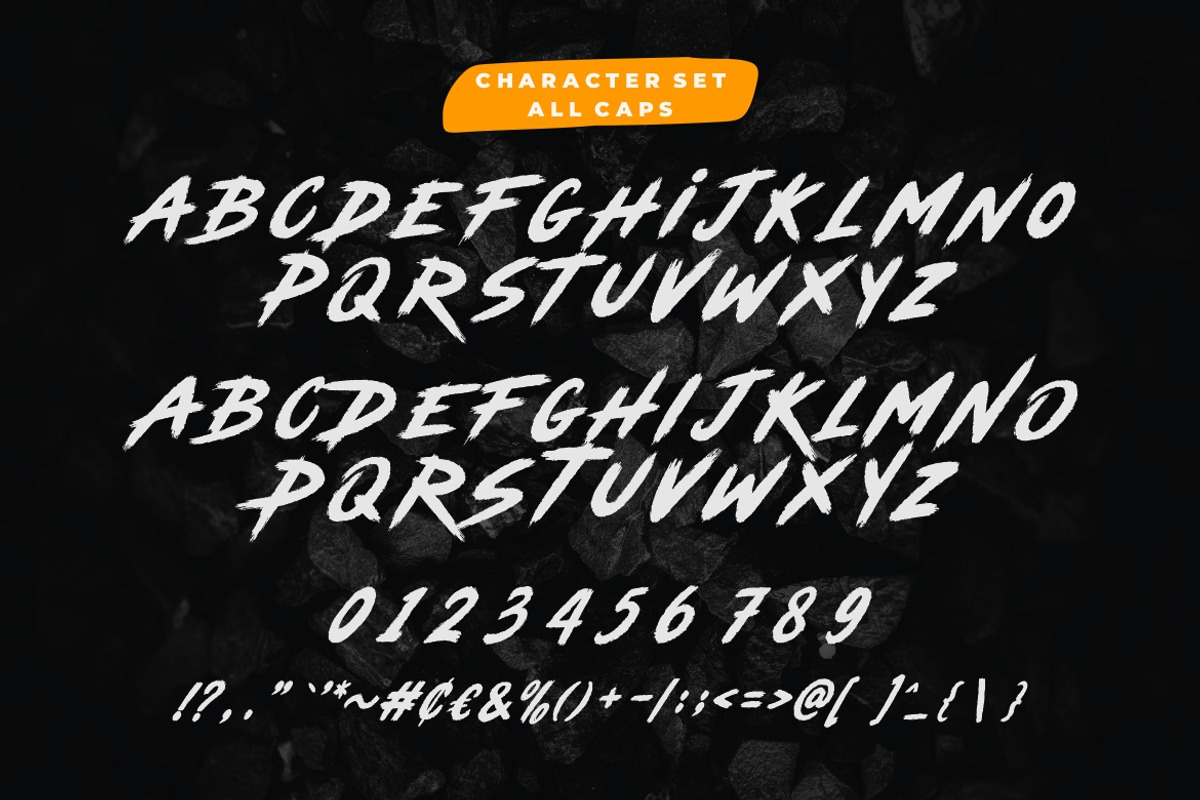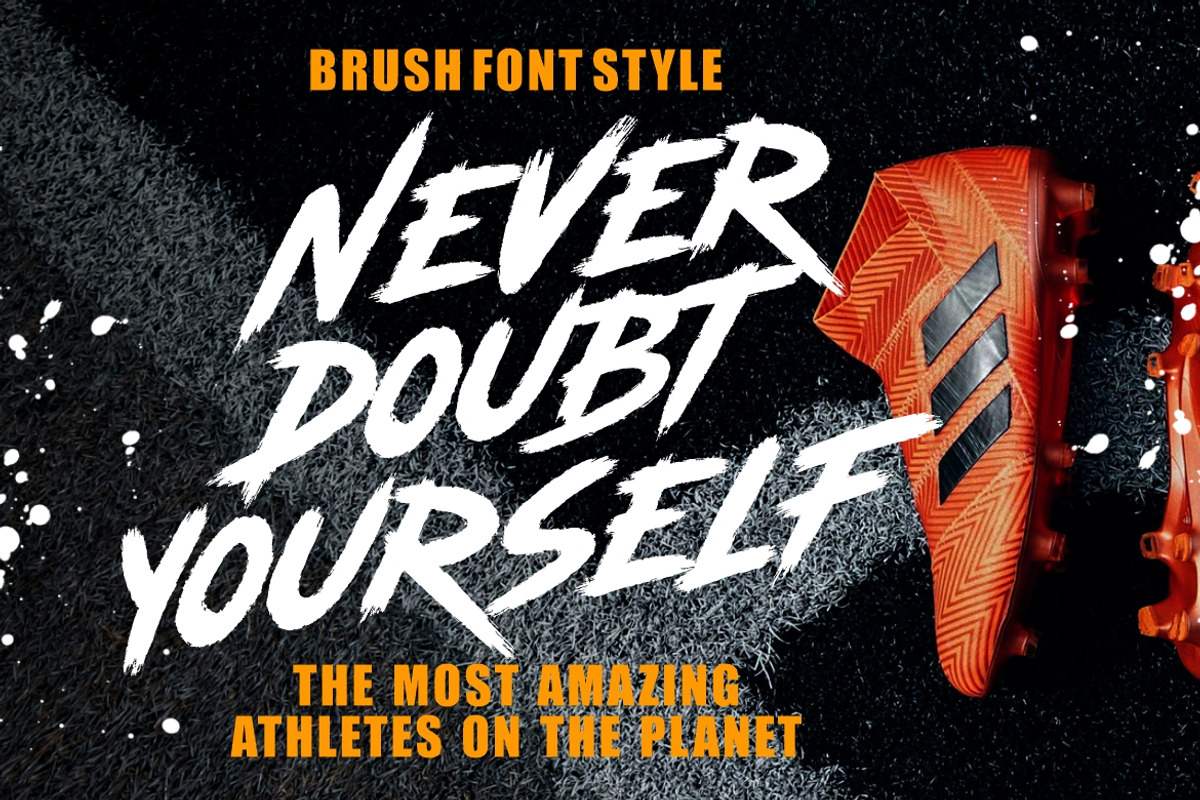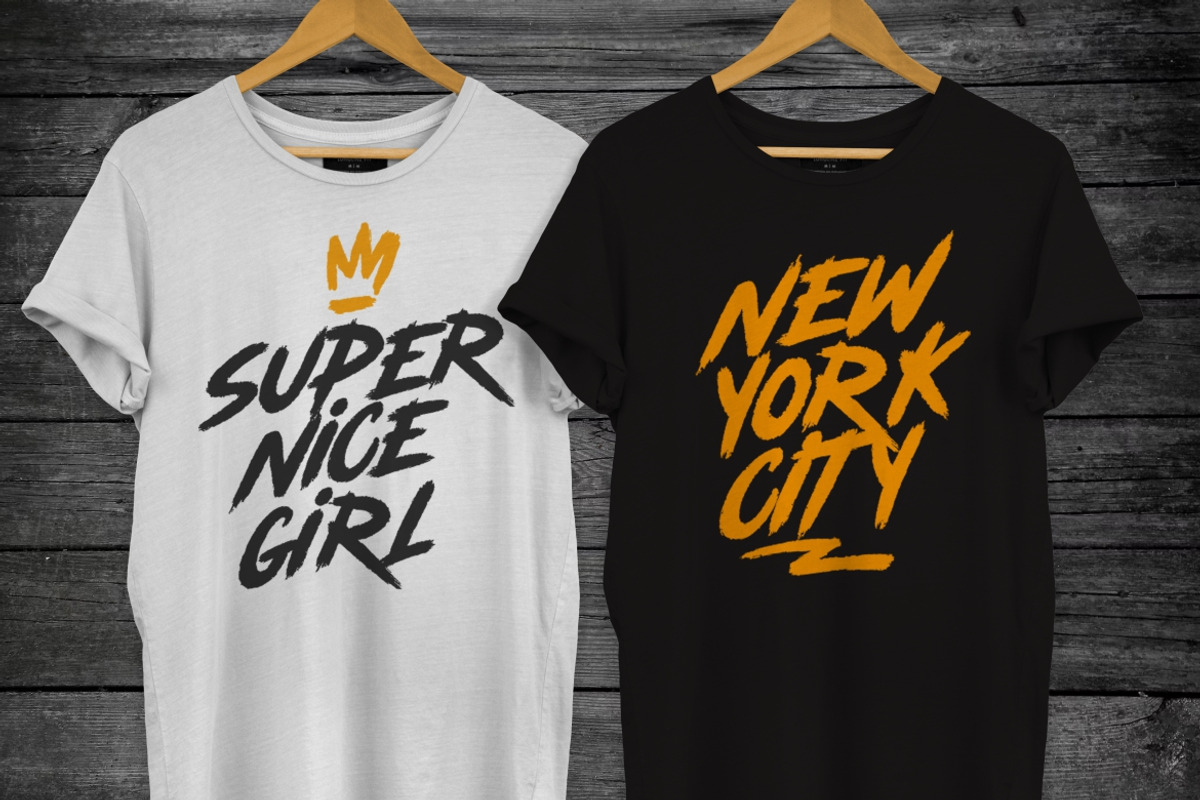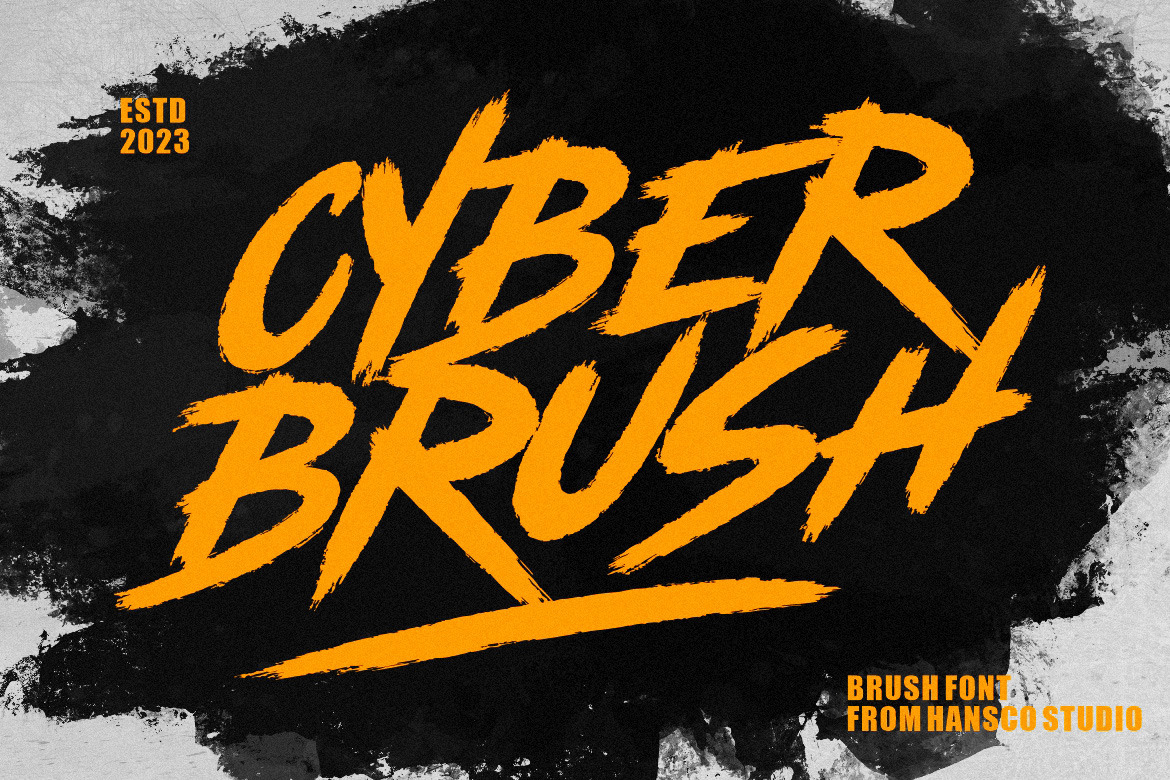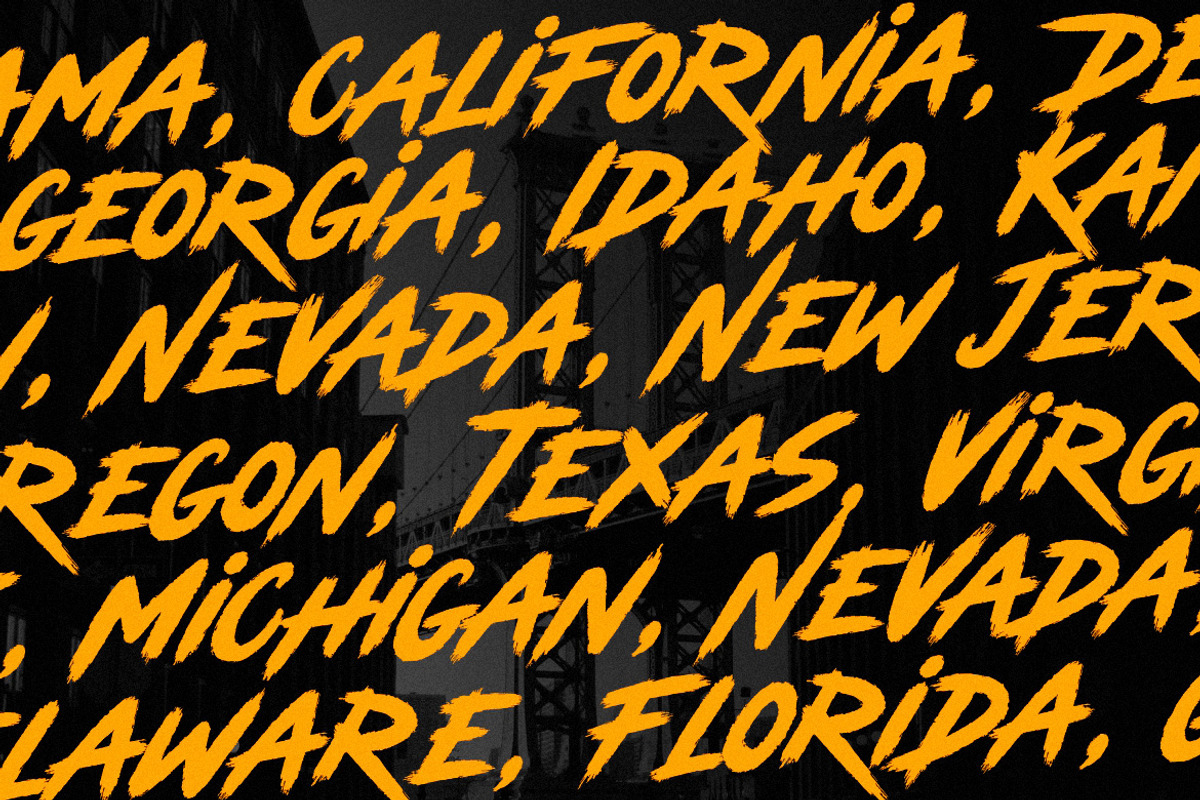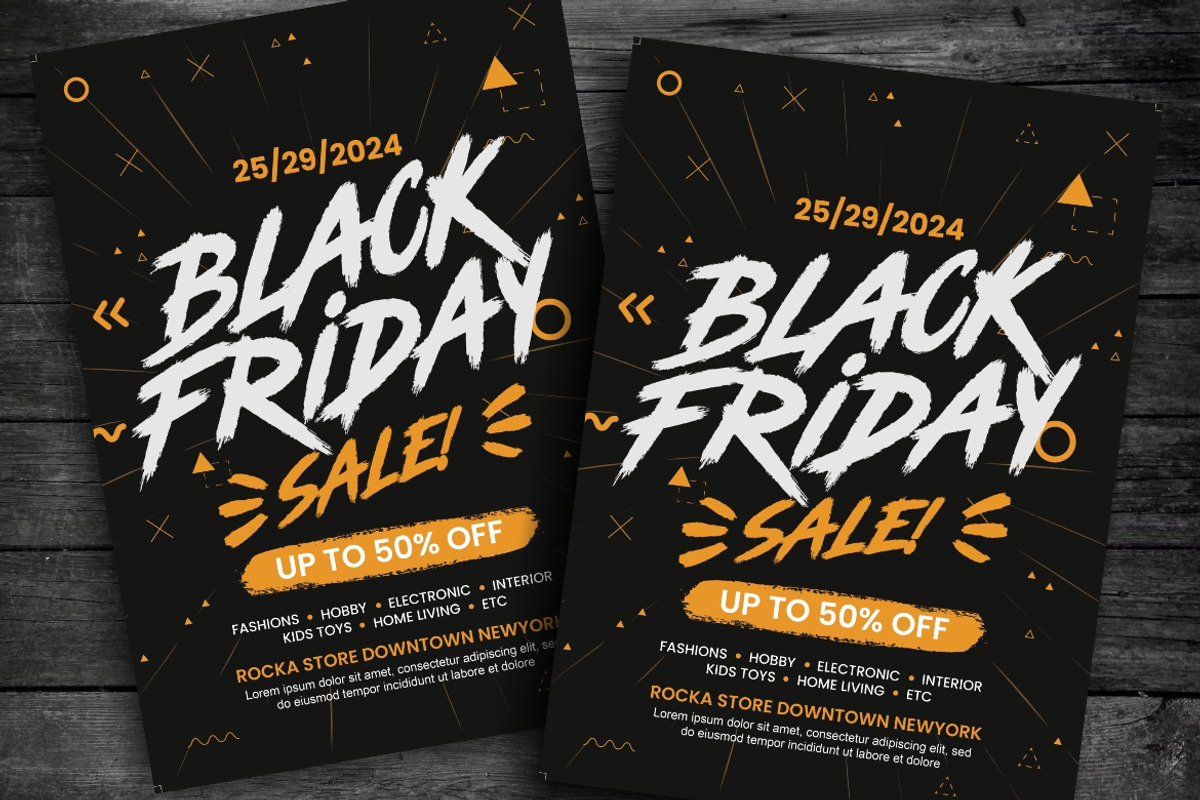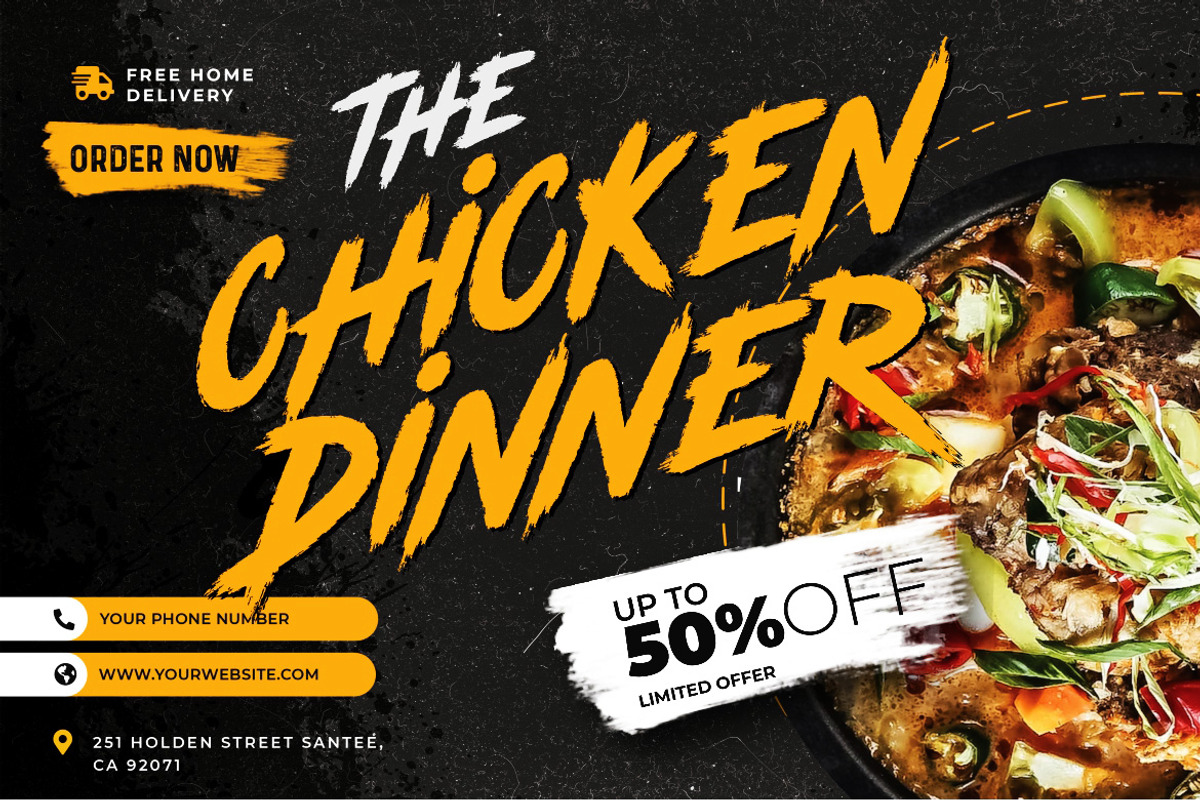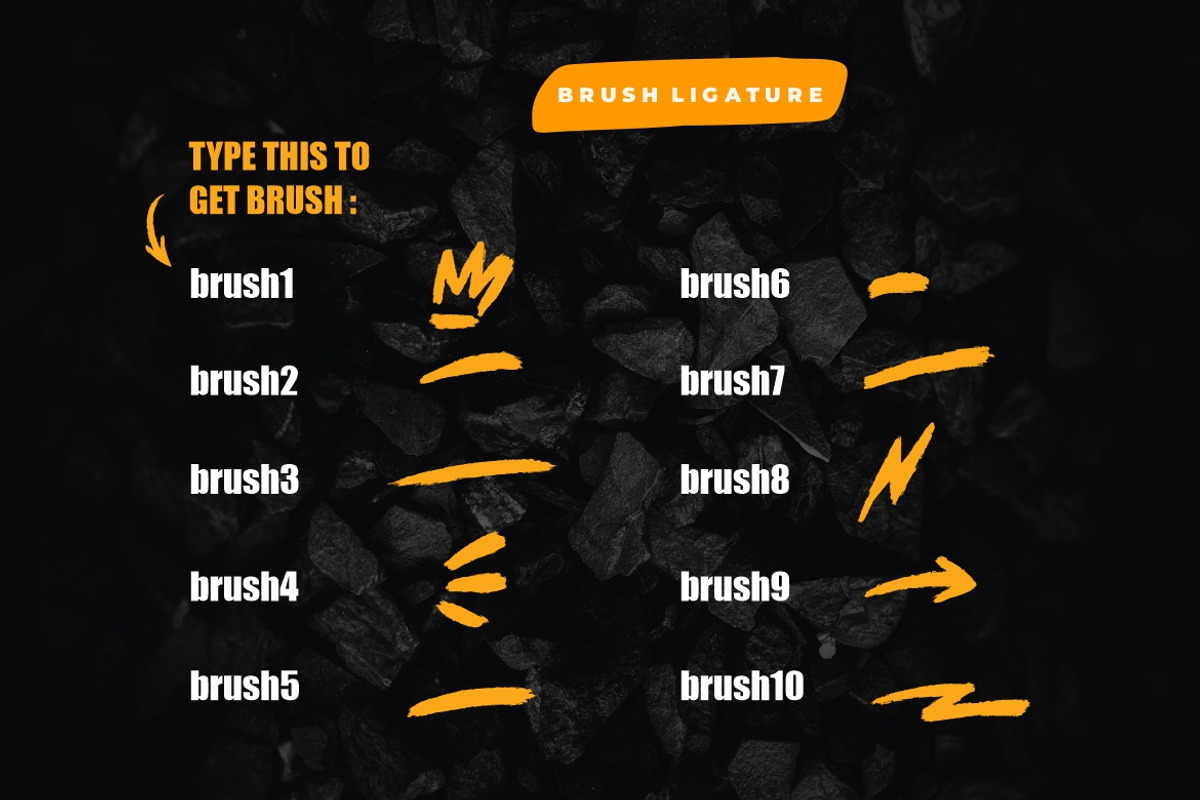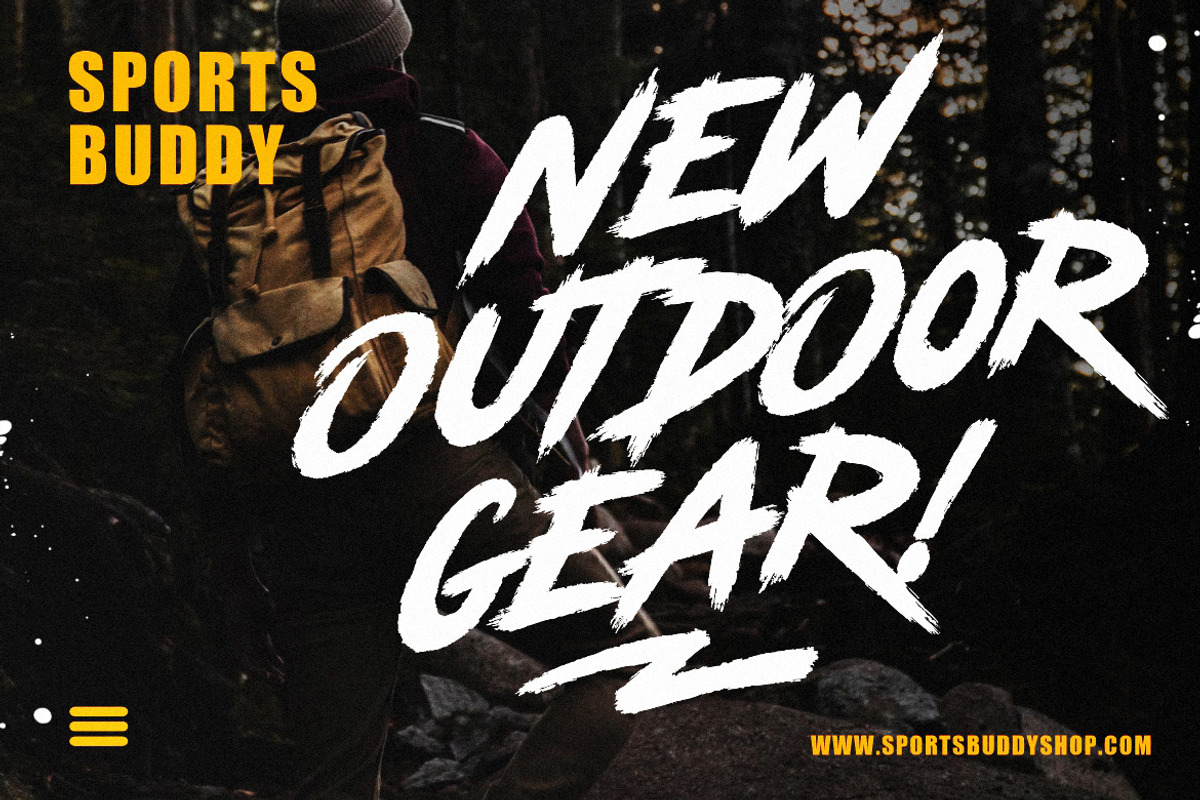
Cyber Brush Font!
Cyber Brush is a handwritten font with a bold and rough style in a dry brush texture. This texture is very detailed. Very suitable for logos, product branding, printable templates, posters, flyers, shirts, or for text overlay to any background image. Acorn Brush font comes in All caps, with punctuation, numerals and also has multilingual support.
All Caps / All Uppercase